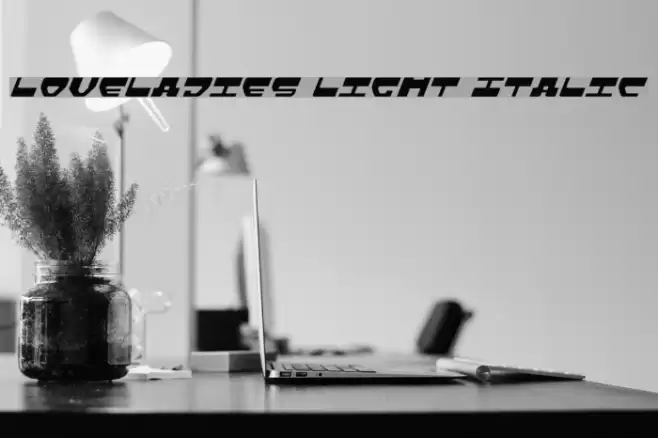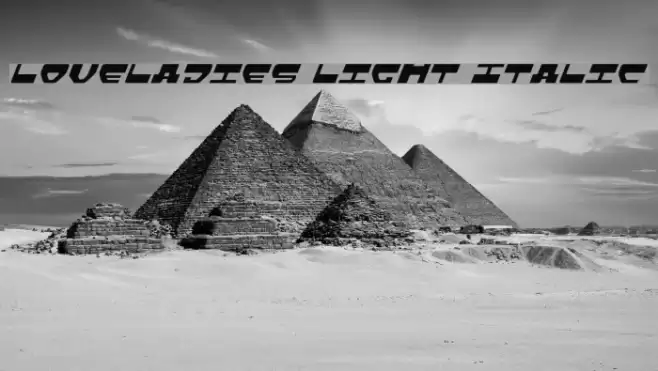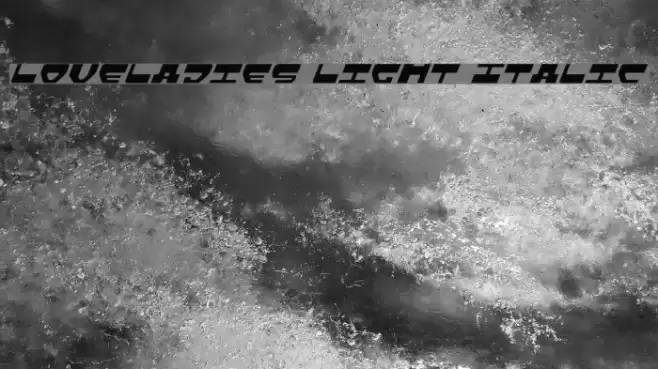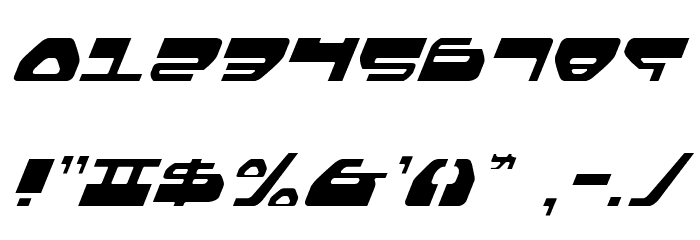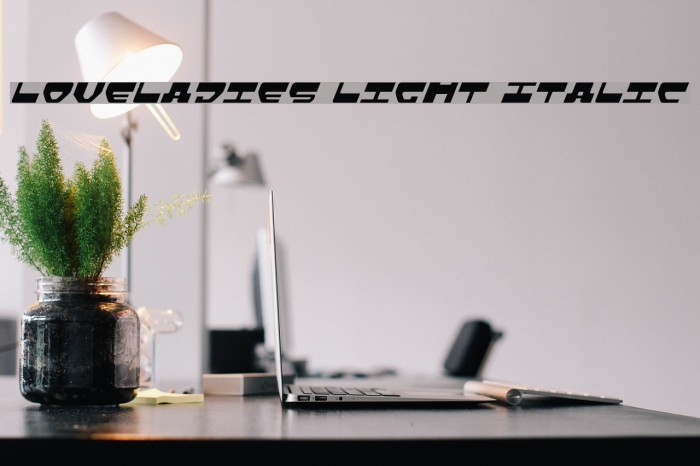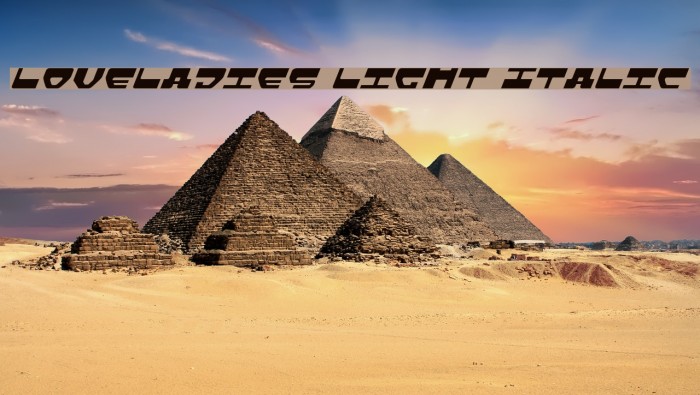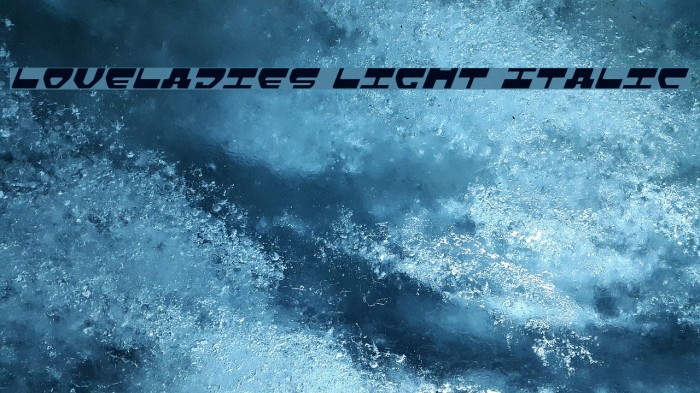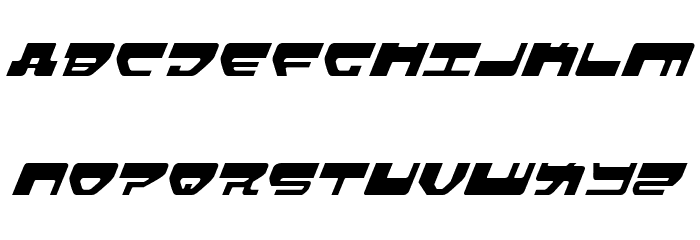
Loveladies Light Italic Font
Loveladies Light Italic Description
This font features a bold, italicized style with a futuristic and angular design. The characters are sharply cut with distinct geometric shapes, giving it a dynamic and modern appearance. The uppercase and lowercase letters maintain a consistent style, with the lowercase slightly smaller but equally bold. Numbers and special characters follow the same design principles, ensuring uniformity across all glyphs. The font's unique style makes it stand out, with each character having a sense of motion and energy. Its boldness and angularity suggest a sense of speed and modernity, making it suitable for projects that require a strong visual impact.
A bold, italicized font with a futuristic, angular design from Valentine's Day fonts.
- Proposed Projects: Ideal for sci-fi themed designs, video game graphics, technology branding, and dynamic posters.